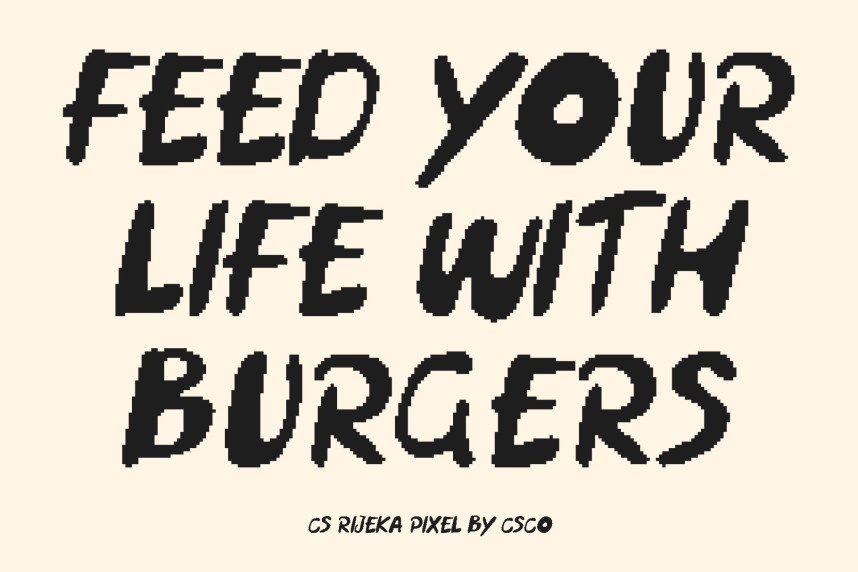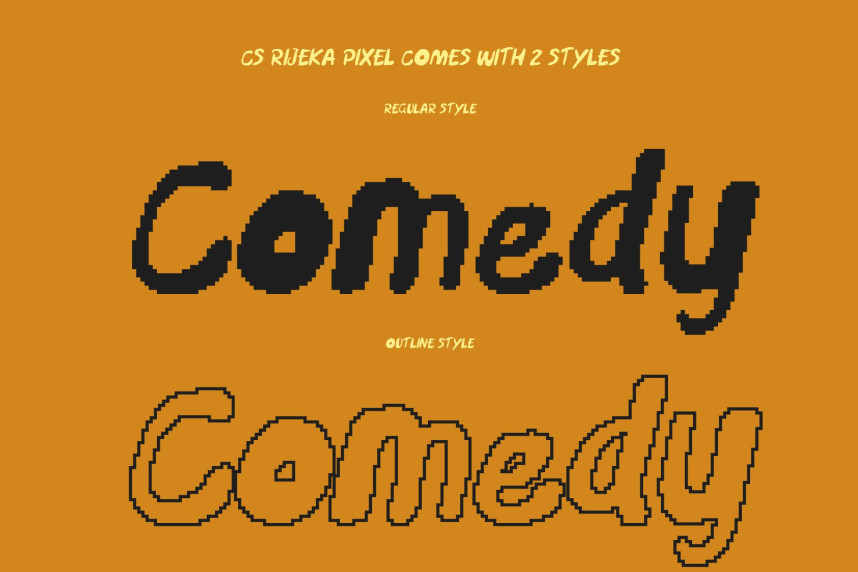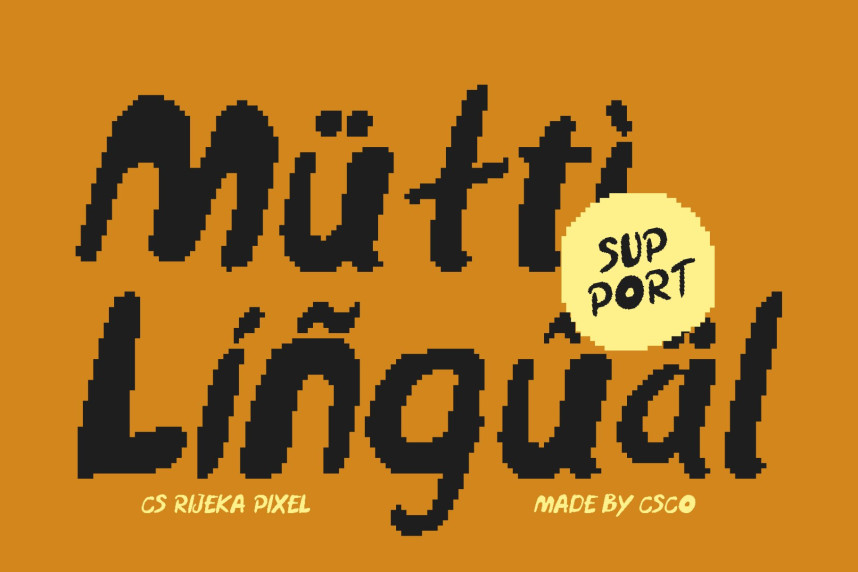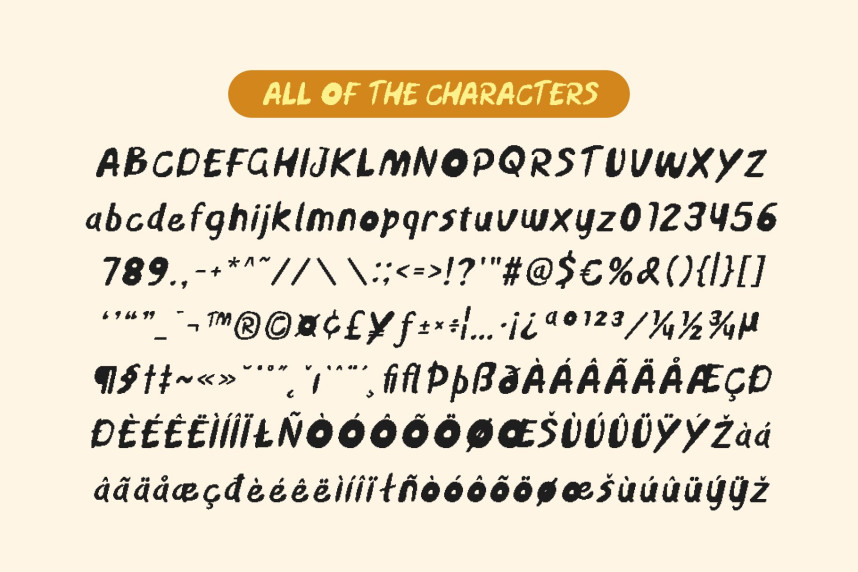
CS Rijeka Pixel Font
CS Rijeka Pixel Font – Playful Handdrawn Font with Digital Charm Relaxed and Friendly Pixel Style. This is a playful handdrawn font designed to bring warmth, charm, and personality into modern designs. Its relaxed letterforms are enhanced with subtle pixel-inspired structure, giving the font a friendly digital feel while preserving its natural, hand-sketched character.